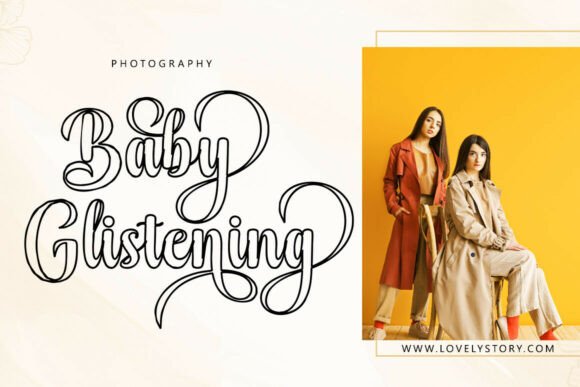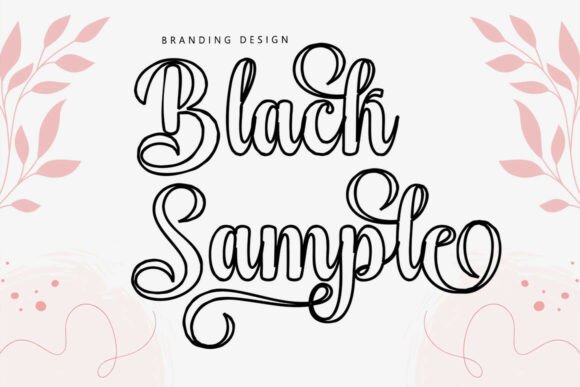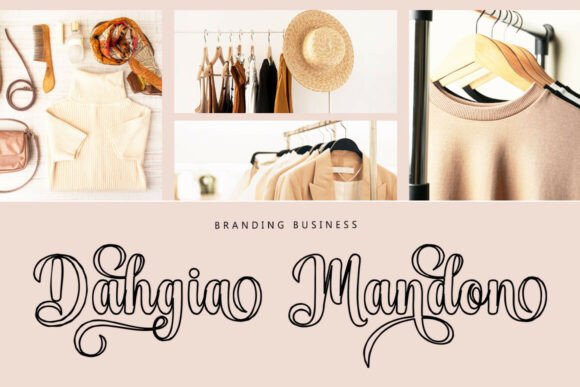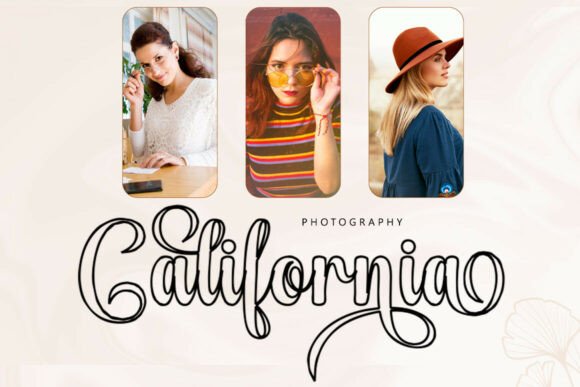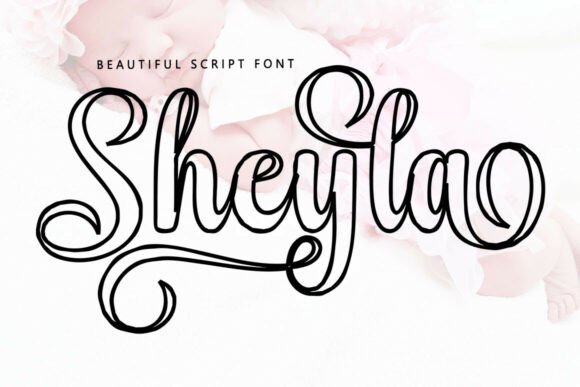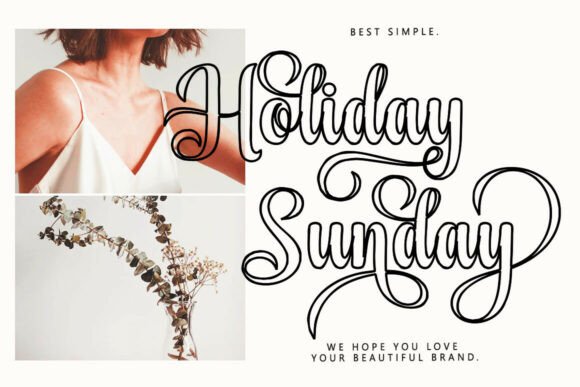
Baby Monday Outline Font – Free Download
Introduction to Baby Monday Outline Font
Baby Monday Outline is a calligraphy font with beautiful alternate characters.
This font combines calligraphy with a modern style It is designed to convey an elegant and romantic style.
Baby Monday Outline Font offers exceptional quality and versatility, making it a valuable addition to your design toolkit. Whether you’re creating for personal projects or commercial use, Baby Monday Outline Font delivers professional results.